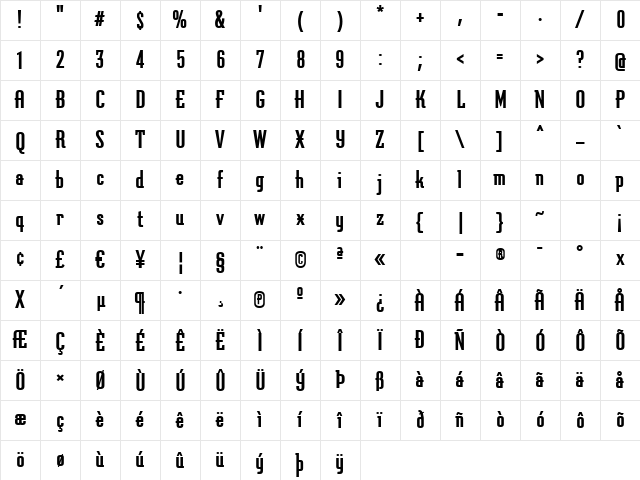
Complete Graficz Bold glyph index. Displaying only characters natively supported by Graficz Bold font.
Graficz is a composed and adaptable typeface that performs quietly and consistently across a wide range of design contexts. Its bold stroke weight gives it real presence on the page.